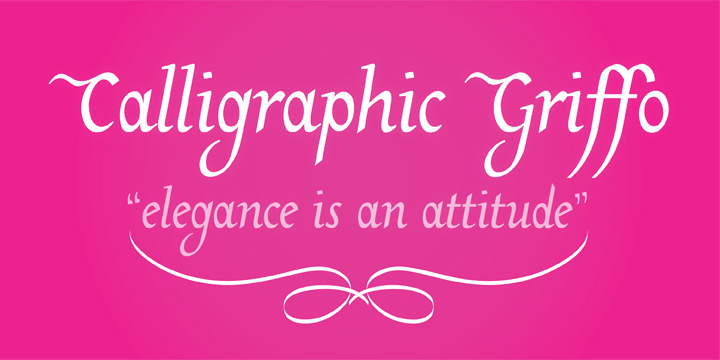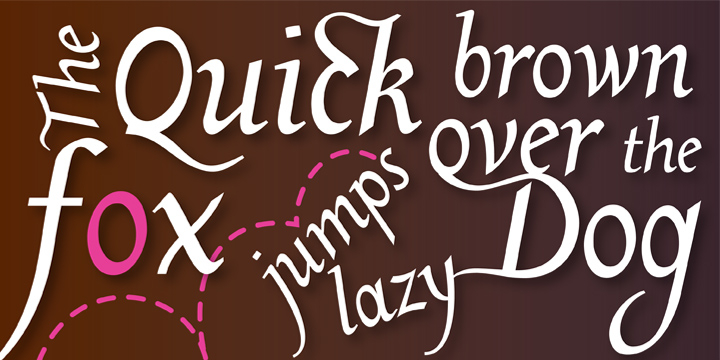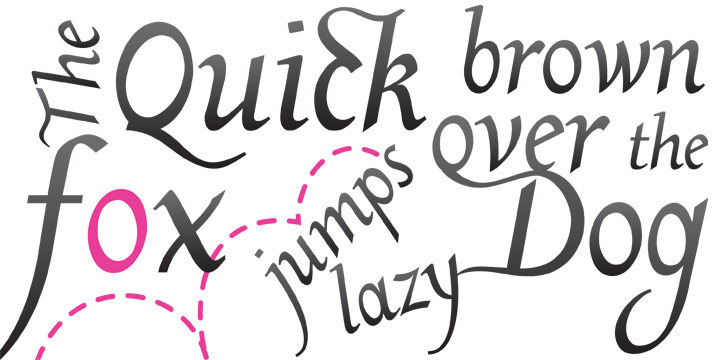
Calligraphic Griffo
Alice Tebaldi
Calligraphic Griffo comes from my personal interpretation of Francesco Griffo works. He was one Italian’s type founder, punch cutter and type designer and the first who drawn and realize the typographical’s punch of the italics around the 1500. His dedication to works and incredible perfection make me fall in love for his typefaces. Here my font: a readable and classical Serif with well-proportioned letterforms, a lot of ligatures combination and initial Swash Letters. The word “Calligraphic” come to the tool that I use to draw the type: a Parallel pen (normally used for calligraphic typefaces). Hope you like it!